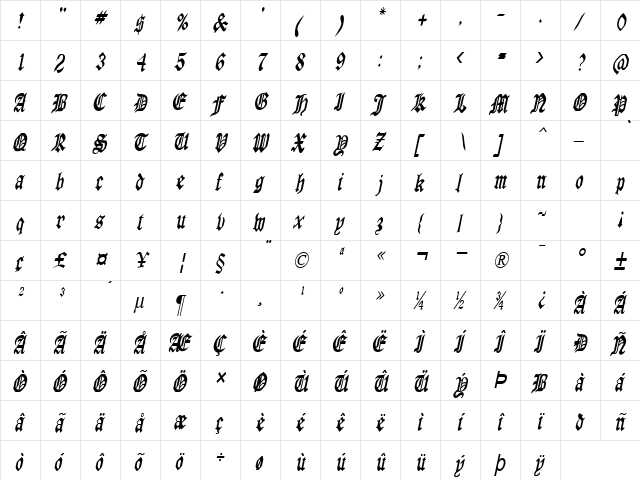
Manuscript-Condensed Italic
Design Context for Manuscript-Condensed Typeface
Manuscript-Condensed brings a calligraphic fluidity to the page — its connecting strokes and expressive curves give it an unmistakably human quality.